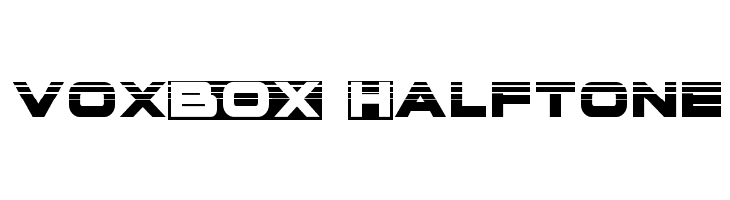
• voxBOX Halftone caratteri
A bold, geometric font with a halftone effect, perfect for modern and dynamic designs.
• voxBOX Halftone Italic caratteri
A bold, italicized font with a halftone effect, ideal for dynamic and futuristic designs.
• voxBOX Italic caratteri
A bold, italic font with sharp angles and a modern, dynamic style.
• voxBOX Laser caratteri
A bold, futuristic font with geometric angles and a modern aesthetic.
• voxBOX Laser Italic caratteri
A bold, italicized font with a futuristic and dynamic style.
• voxBOX Leftalic caratteri
A bold, futuristic font with angular, slanted characters and a geometric design.
• voxBOX Semi-Italic caratteri
A bold, italic font with a futuristic and dynamic style.
• voxBOX Super-Italic caratteri
A bold, italic font with a modern, angular design and strong slant.
• voxBOX Title caratteri
A bold, geometric font with a modern and structured design.
• voxBOX Title Italic caratteri
A bold, italicized font with a modern and dynamic style.